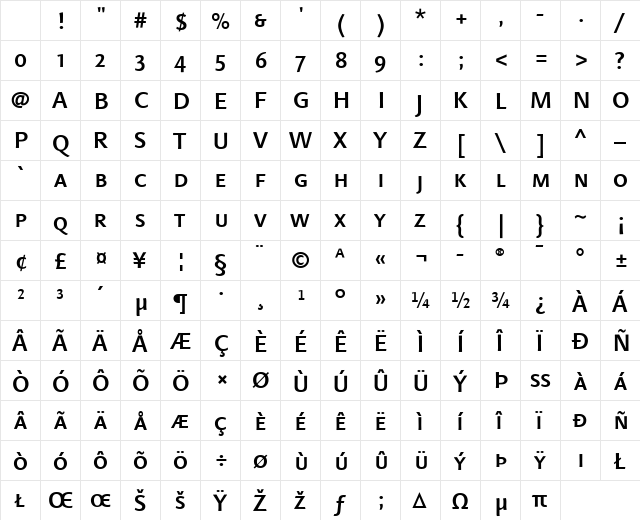
Complete LTFinnegan SC Medium Regular glyph index. Displaying only characters natively supported by LTFinnegan SC Medium Regular font.
LTFinnegan SC Medium is a composed and adaptable typeface that performs quietly and consistently across a wide range of design contexts.